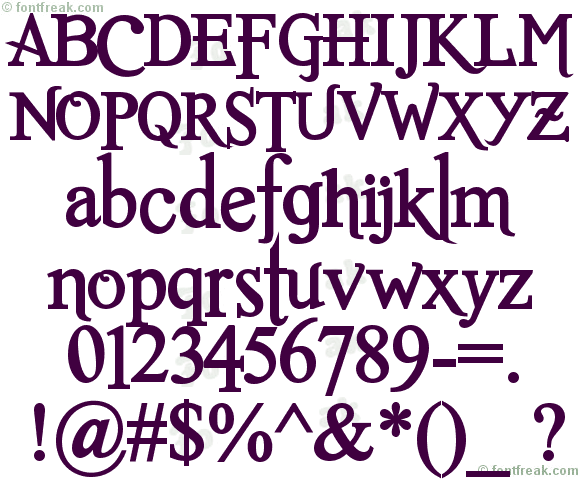
Romance Fatal Serif Std
Romance Fatal Serif Std Bold
About Romance Fatal Serif Std
Romance Fatal Serif Std is a striking serif typeface designed by Juan Casco. Released in 2009, this font encapsulates a unique blend of elegance and drama, making it an excellent choice for various creative projects. With its distinctive stroke weight and high contrast, Romance Fatal Serif Std features sharp, elongated serifs that add a touch of sophistication. The letterforms exhibit an artistic flair, enhanced by decorative elements that give it a romantic yet edgy character. The spacing is thoughtfully designed, allowing for legibility while maintaining an artistic aesthetic.
This font is particularly well-suited for wedding invitations, where its elegant style can convey a sense of love and celebration. It can also shine in movie posters, capturing the essence of themes that revolve around romance or suspense. Restaurant menus can benefit from its bold character, attracting customers with a sophisticated appeal. Additionally, it serves as a fantastic choice for branding materials, helping small business owners establish a unique identity that resonates with their audience.
Author Juan Casco